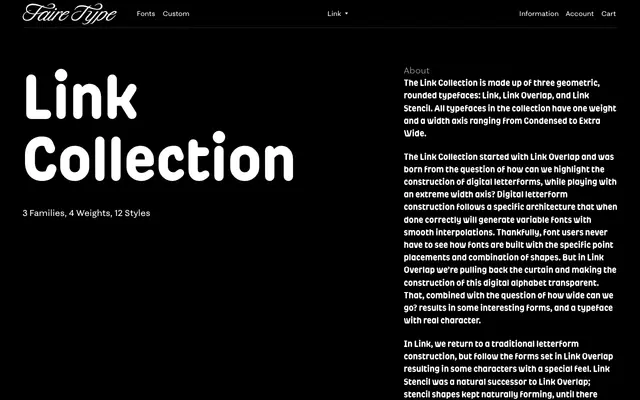
Link
Faire Type · Maxime Gau · 2023
A three-family geometric rounded collection by Maxime Gau that exposes digital letterform construction through an overlap variant and stretches across an extreme variable width axis.
Designed by Maxime Gau and engineered by Sabrina Nacmias, the Link Collection comprises three related typefaces sharing identical skeletal forms. Link Overlap pulls back the curtain on digital font construction by making the underlying shape combinations visible, while Link Stencil evolved naturally from stencil alternates that accumulated during that process. All three run a single weight across a variable width axis from Condensed to Extra Wide, making them well-suited to expressive display work where structural curiosity and formal consistency matter equally.
A geometric, rounded display typeface with variable width axis and stencil/overlap subfamilies; the transparency of letterform construction and extreme width range push it firmly into display territory.